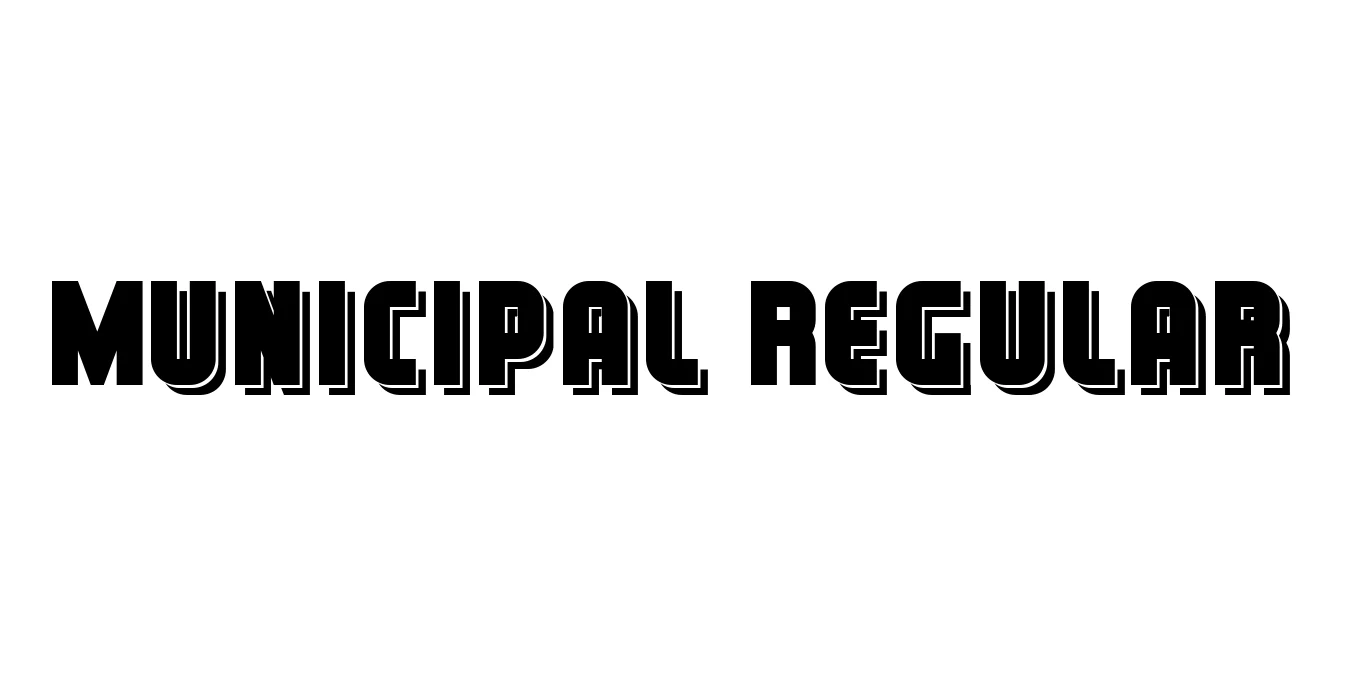
Municipal Regular
Designed by Ray Larabie
| Font Name | Municipal |
| Category | Display / Sans-serif |
| Designer | Ray Larabie |
| Similar Fonts | Impact, Compacta, Haettenschweiler, Stencil |
Municipal Regular is a robust and heavy-duty display typeface designed by the prolific Ray Larabie of Typodermic Fonts. Drawing its inspiration from the utilitarian and no-nonsense lettering found on public works vehicles, municipal signage, and industrial equipment, the font communicates a sense of strength, reliability, and urban grit. Its geometric construction and uniform stroke thickness ensure that every character occupies a significant visual space, making it an excellent choice for high-impact communication.
The typeface is characterized by its wide stance and blocky architecture, which captures the aesthetic of mid-century industrialism while remaining functional for modern digital and print media. Municipal Regular is particularly effective when used in large formats where its bold presence can be fully appreciated. It has become a staple for designers looking to infuse their work with a sense of structural integrity and authoritative style, bridging the gap between historical municipal graphics and contemporary graphic design.
Municipal Regular Best Uses
Perfect for creating powerful and attention-grabbing titles in magazines or posters.
Ideal for industrial, construction, or machinery-focused brand identities.
Effective for high-visibility outdoor and urban wayfinding systems.
Great for high-impact visuals that require a rugged, heavy-duty feel.